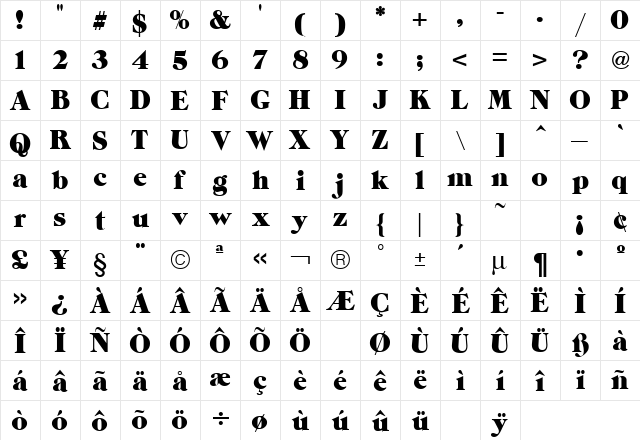
Grouch Regular Font Preview
Grouch Regular
Grouch Regular Font Details
Design Context for Grouch Typeface
Grouch is a composed and adaptable typeface that performs quietly and consistently across a wide range of design contexts.
Pro Tip: Use Grouch in both headline and body roles to test its range before committing to a single application.